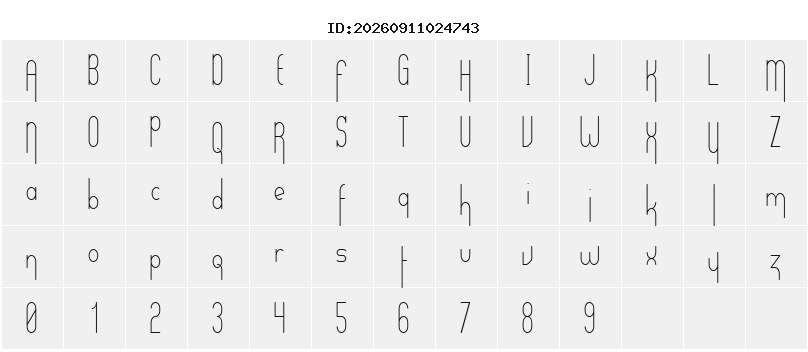
Verticalization Preview
About Verticalization.ttf
Verticalization.ttf is a modern, elegant sans-serif font designed for ultimate readability and visual harmony. Perfect for branding, headlines, web design, and print materials.